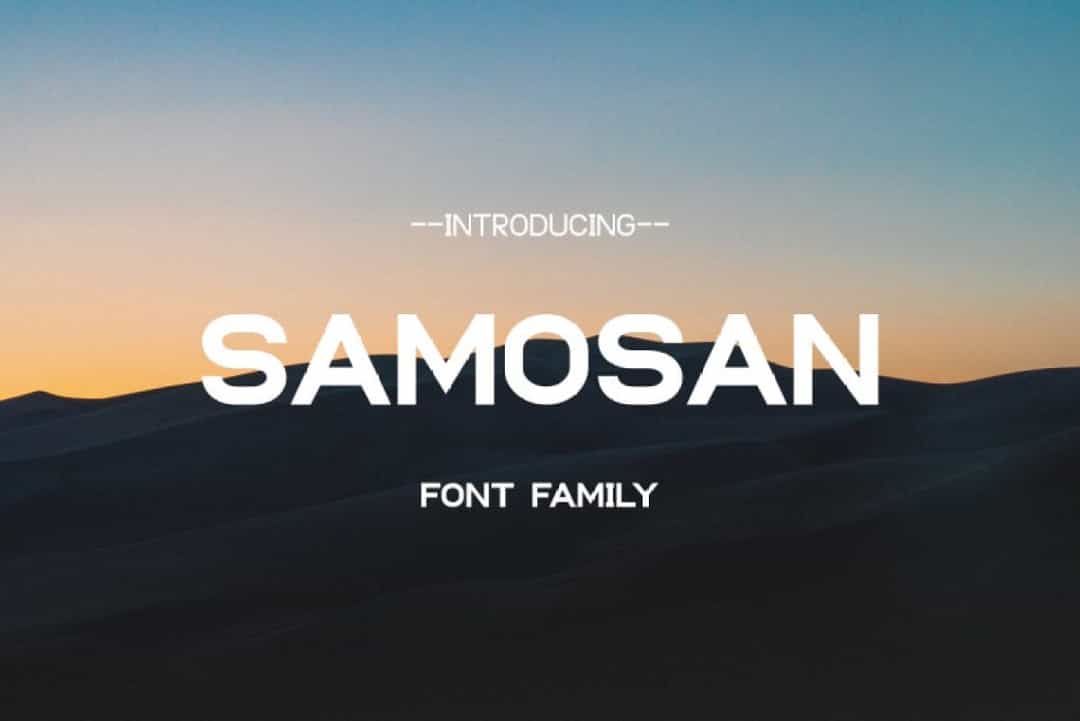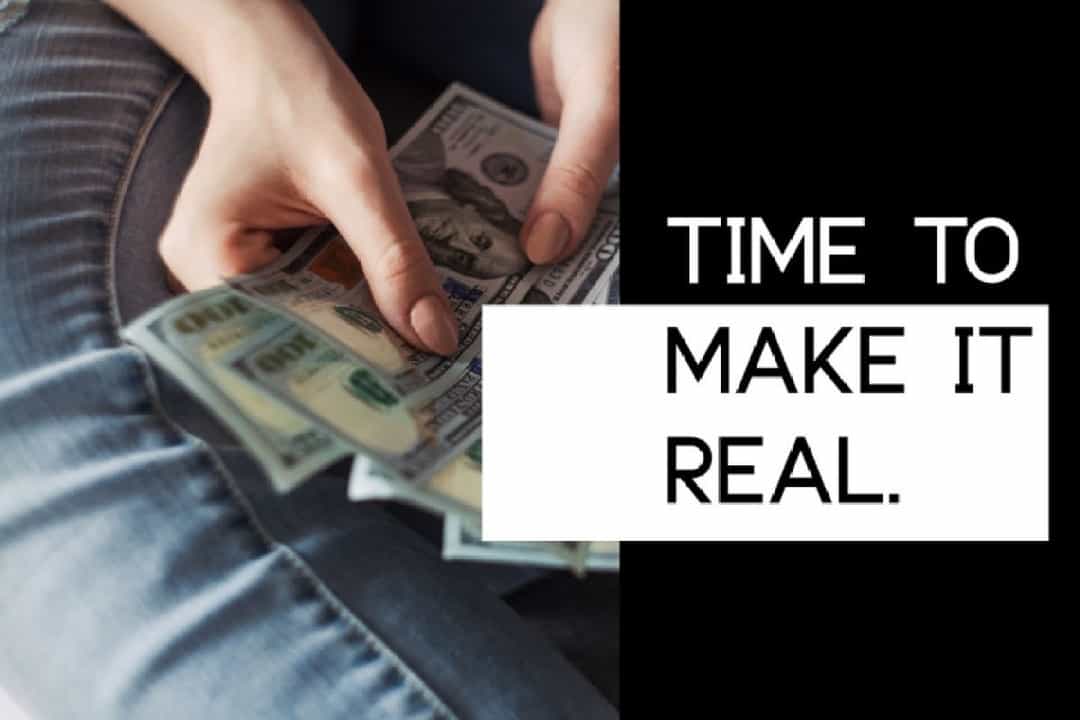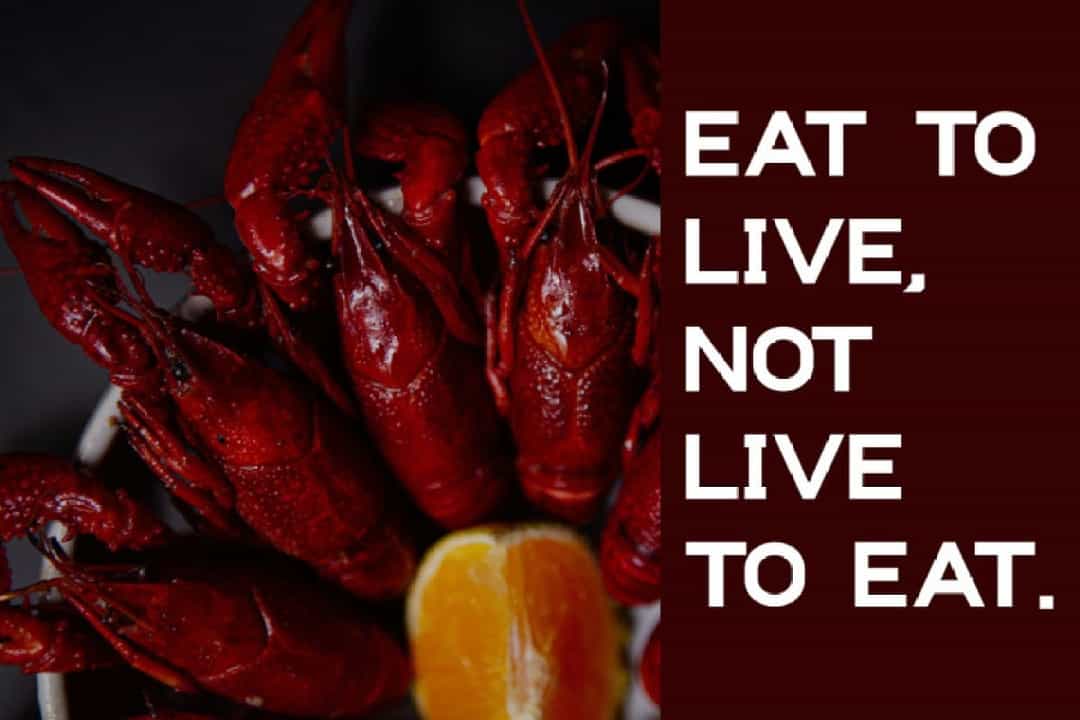
Samosan is an sans-serif font, with a butt cap that gives an air of sweetness, relaxation and fresh. Its design is based on the lines and circles with space between each letter. It can be used as a minimalist style header display or be read with ease as text-based content.